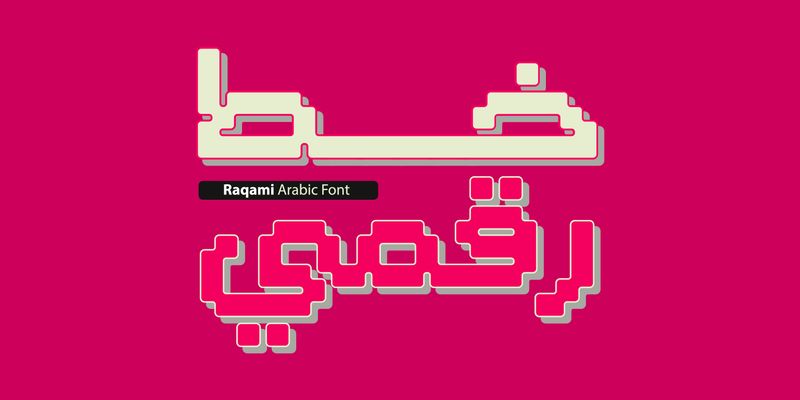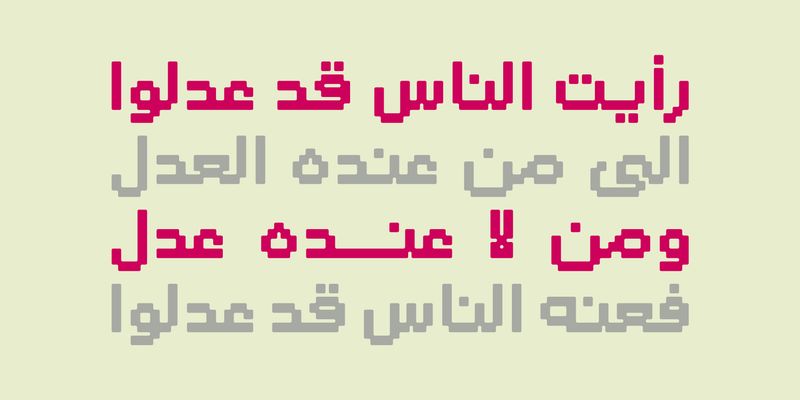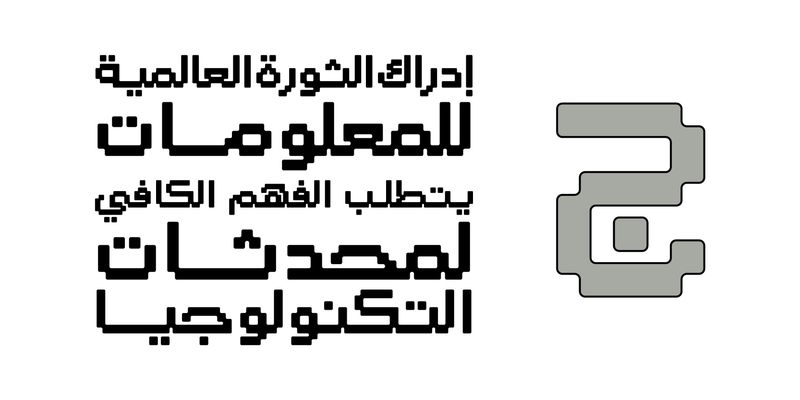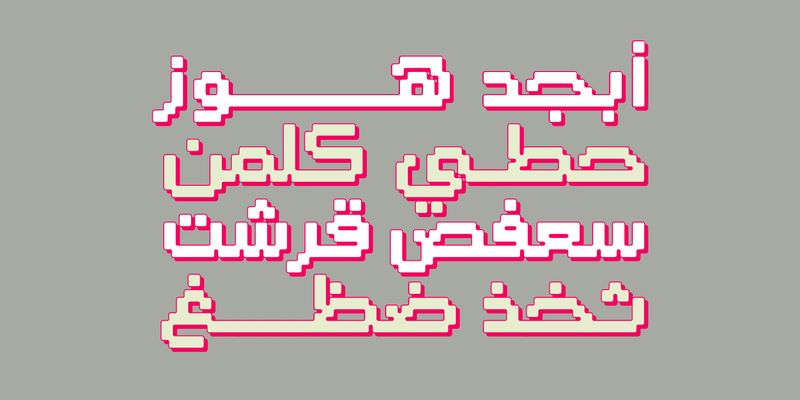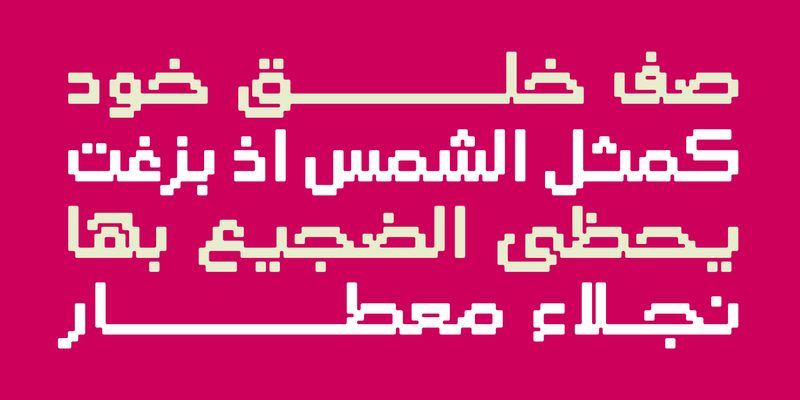
Raqami (Arabic for “Digital”) is a bold Arabic display typeface built on a pixel‑driven letterform aesthetic inspired by classic 8‑bit graphics. Its crisp, modular structure brings a nostalgic yet modern edge to contemporary design. Perfect for print campaigns, digital interfaces, and mobile experiences, Raqami delivers a distinctive tech‑inspired voice that stands out across today’s creative platforms.
Mostafa El Abasiry is an independent Arabic type designer whose work has helped define a new era of expressive Arabic typography. Since 2009, he has built a distinctive and influential catalogue of Arabic typefaces known for their bold geometry, modern aesthetics, and emotionally resonant visual character. His designs are widely recognized for merging the structural clarity of geometric construction with the creative freedom of contemporary display typography.
Mostafa’s approach is rooted in a balance of mathematical precision and artistic intuition. Many of his typefaces begin as geometric studies - circles, arcs, grids, and modular systems, before evolving into expressive display families with strong visual identity. Other designs explore texture, layering, and experimental forms, expanding the expressive potential of Arabic letterforms in digital environments.
In 2017, Mostafa introduced Tajreed, the first Arabic OpenType‑SVG color font ever created. This pioneering work brought textured, multi‑layered Arabic typography into mainstream digital use and opened a new category of expressive Arabic tools for designers and everyday creators. Tajreed later grew into a broader ecosystem of textured and experimental families that influenced how Arabic typography appears in mobile apps, creative platforms, and user‑generated content.
Mostafa’s typefaces have been used by a wide range of clients, from global brands such as Apple TV+ and Turkish Airlines to millions of everyday creators. Despite this reach, his design process remains deeply personal: every typeface begins with hand‑drawn sketches, geometric construction, and a search for a unique visual voice rooted in Arab visual culture.
Today, Mostafa continues to expand his catalogue with new display families, textured experiments, and modern interpretations of Arabic typographic heritage. His work aims to give designers and creators expressive tools that did not exist before - tools that make Arabic typography feel bold, modern, and alive.